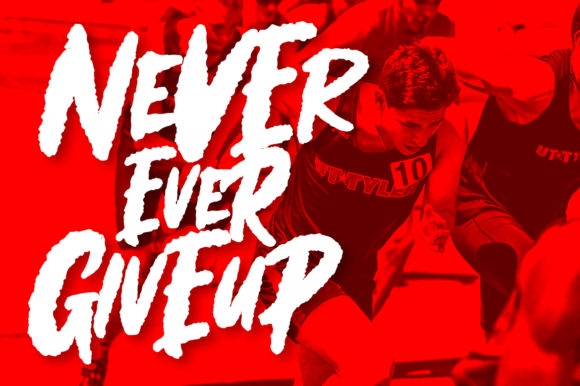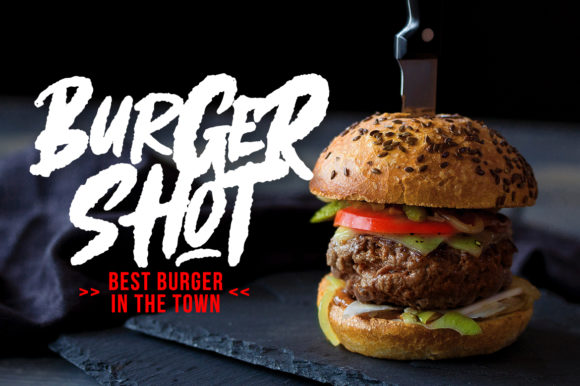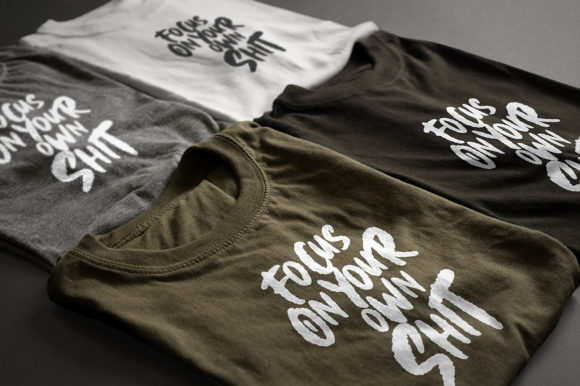
The Gillattoz Font: A Game-Changer for Your Design Projects
I’ll never forget the time I was working on a project for a client who wanted a bold, eye-catching font to make their brand stand out. I spent hours scouring the internet for the perfect font, but nothing seemed quite right. That was until I stumbled upon the Gillattoz font. **This cool and bold handwritten font has been a game-changer for my design projects**, and I’m excited to share its awesomeness with you!
An Honest Review of Gillattoz
What I Love About Gillattoz ✨
- ✅ Unique and bold style that adds a personal touch to any design project
- ✅ Extensive character set, including glyphs and stylistic alternates
- ✅ Works beautifully for both digital and print projects
- ⚠️ Some users may find the font a bit too bold for certain design projects
- ⚠️ Limited availability of language support (but it’s still a great option for English-based projects)
- Experiment with OpenType features, such as glyphs and stylistic alternates, to add some extra flair to your design
- Take advantage of OpenType features, such as ligatures and stylistic sets, to add more personality to your design
The Story Behind Gillattoz
The Gillattoz font was created by a talented designer who wanted to craft a unique and bold handwritten font that would add a personal touch to design projects. Inspired by classic handwriting and modern typography, Gillattoz is the perfect blend of style and legibility. **Whether you’re a designer, crafter, or creative hobbyist, Gillattoz is sure to become a favorite in your font collection!**
| Font Name | Gillattoz Font |
| Author | Weape Design |
| What type of projects is Gillattoz best suited for? | Gillattoz is perfect for a wide range of design projects, from branding and advertising to packaging and digital designs. |
| Does Gillattoz support OpenType features? | Yes, Gillattoz supports OpenType features, including glyphs, stylistic alternates, and ligatures. |